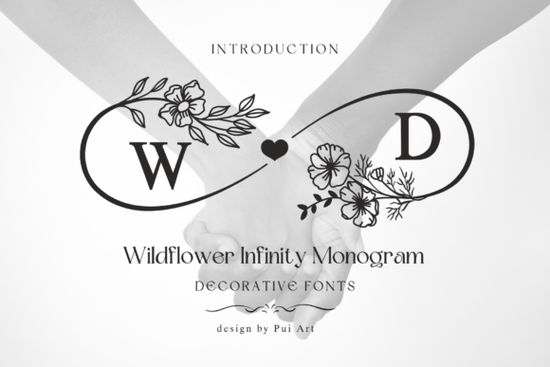
Creating personalized designs for weddings or special gifts often requires a typeface that feels both personal and polished. If you are looking for a typeface that combines nature with romance, the Wildflower Infinity Monogram Font offers a distinct solution. This tool is designed specifically for crafters and small business owners who need elegant initials for their projects. It simplifies the process of making luxury-looking items without needing advanced graphic design skills.
What makes this monogram style unique?
Many decorative fonts focus solely on swirls or standard ligatures. However, this specific set integrates botanical elements directly into the letterforms. Each letter from A to Z includes delicate wildflowers and greenery. The standout feature is the infinity symbol, which incorporates a heart at its center. This adds a layer of meaning to any design, symbolizing eternal love or connection.
The aesthetic is graceful rather than bold. It works best when you want to convey sophistication. Because the details are fine, it stands out well on light backgrounds or when cut from high-quality vinyl. The design avoids looking cluttered, ensuring that the initials remain readable even with the added floral accents.
Where can you use these floral initials?
This typeface is versatile enough for both digital and physical products. Since it is a complete monogram set, you can create custom logos for brides or engagement parties. Here are some practical ways to apply this style in your work:
- Wedding Invitations: Use the initials on the front of invites or save-the-date cards.
- Personalized Gifts: Create designs for mugs, tumblers, or throw pillows.
- Vinyl Decals: Cut shapes for car windows, laptops, or water bottles.
- Anniversary Keepsakes: Design prints or frames for milestone celebrations.
- Business Branding: Ideal for florists, wedding planners, or boutique owners.
How do you maximize the design quality?
To get the best results, pay attention to sizing and color contrast. The fine lines in the wildflowers can get lost if the design is scaled down too small. For best visibility, keep the monogram at least 3 inches wide when cutting vinyl. For digital use, export your files in high-resolution PNG or SVG formats to maintain crisp edges.
Color choices also matter. While black and white work well for classic looks, trying soft pastels or metallic colors can enhance the botanical theme. Gold foil vinyl, for example, pairs exceptionally well with the infinity heart motif, adding a touch of luxury to the final product.